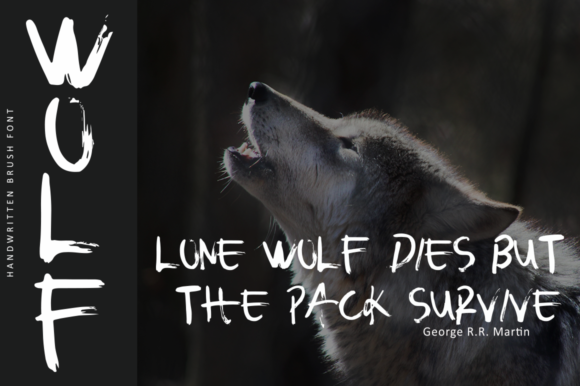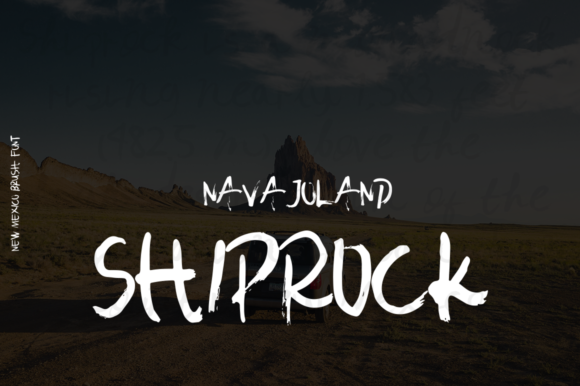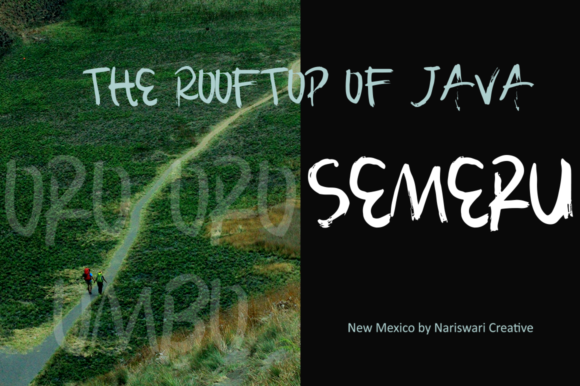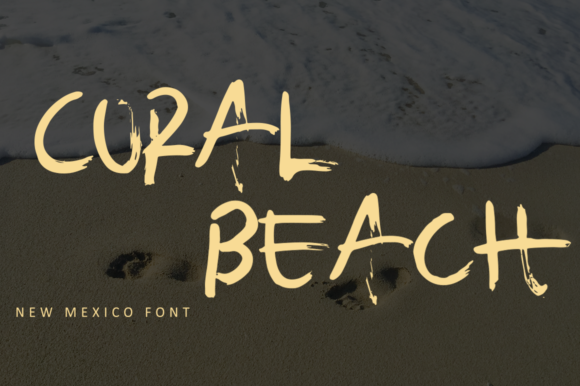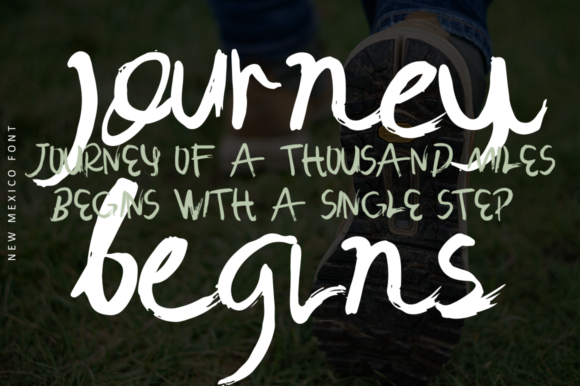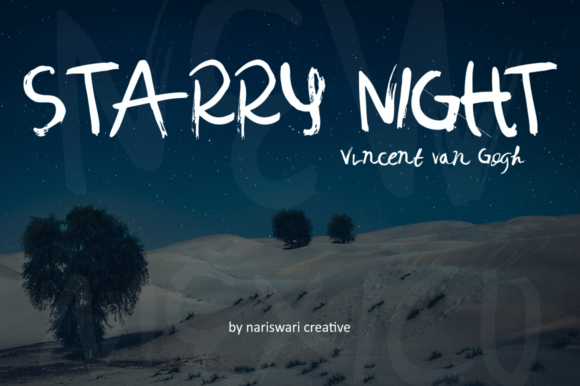
About New Mexico Font
New Mexico is a bold brush font. It has a unique feel that will take your designs to the next level. Use this gorgeous and unique handwritten font to bring any DIY project to life!